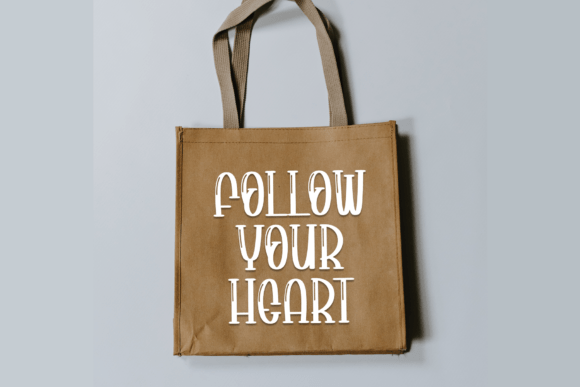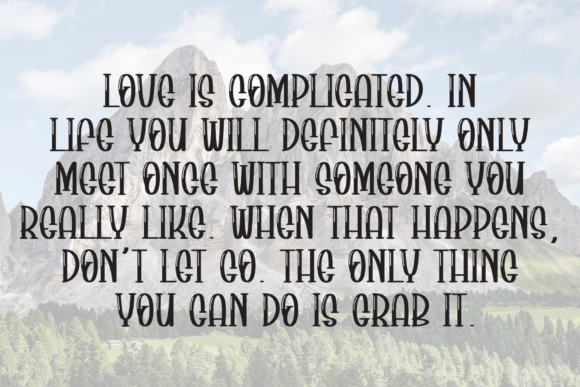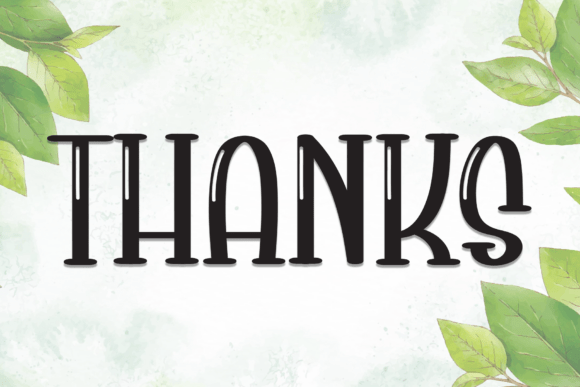
Introduction to Fresh Think Font
As a designer, have you ever stared at a blank canvas, waiting for inspiration to strike? It’s that moment when you finally find the perfect font to bring your creative project to life. Today, we’re excited to introduce you to the Fresh Think Font – a charming, gentle handwritten display font that’s sure to become your new go-to design resource.
This delightful font is perfect for adding a touch of whimsy to your designs, from soulful wedding invitations to heartwarming cards. Its friendly aesthetics are sure to create unforgettable impressions and leave a lasting impact on your audience. With its high-quality design and transparent background, you can easily integrate it into your next creative project.
Key Features of Fresh Think Font
- High-quality design resource with a transparent background, ideal for creative projects that require a modern and sleek aesthetic.
- Unique and modern design style, perfect for creative projects that require a fresh and innovative look.
- Easy to use and customize, making it a valuable resource for designers working on a wide range of creative projects.
Honest Review: Fresh Think Font
As a designer, I’m always on the lookout for high-quality design resources to elevate my creative projects. Recently, I had the chance to try out the Fresh Think Font, and I’m excited to share my honest review with you.
What works well: ✨ The Fresh Think Font is incredibly versatile, with a clean and modern aesthetic that’s perfect for a wide range of design applications. The font is also highly customizable, with a transparent background that makes it easy to layer and combine with other design elements. The font files are well-organized and easy to download, making it a breeze to incorporate into your design workflow.
- Customizable for a wide range of design applications
Limitations: ⚠️ While the Fresh Think Font is a solid addition to any design library, it’s not without its limitations. The font is limited to a single weight and style, which may not be suitable for designs that require a lot of typography variety. Additionally, the font may not be as unique or attention-grabbing as some other design resources on the market.
Overall, I’m impressed with the Fresh Think Font and would definitely recommend it to designers looking for a high-quality, versatile font for their creative projects.
Tips for Getting the Most Out of Fresh Think Font
Experiment with different font sizes, colors, and styles to create unique and visually appealing designs. Use the font in combination with other design elements, such as images or shapes, to add depth and interest to your project.
The Fresh Think Font is suitable for a wide range of creative projects, including logos, branding materials, and marketing collateral. Its high-quality design and transparent background make it an excellent choice for designers looking to add a touch of sophistication to their work.
Is the Fresh Think Font available with a transparent background?
Yes, the Fresh Think Font includes a transparent background option, making it easy to use as a design resource for creative projects that require a seamless integration with images or other design elements.